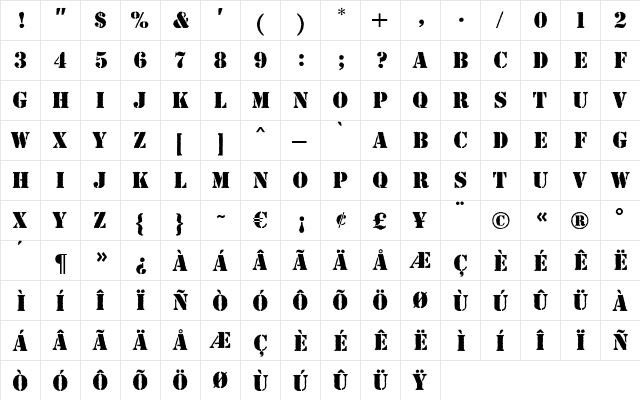
Stencil Antique MN Regular
Design Context for Stencil Antique MN Typeface
Stencil Antique MN has the warm character of retro typography — evoking diners, record sleeves, and the golden age of print advertising.
Ideal for diner signage, record shop branding, 70s/80s-themed projects, and heritage product labels.
Font Pairing: Combine Stencil Antique MN with a simple slab or neutral sans — period-accurate companions reinforce the vintage feel without competing for attention.
Pro Tip: Lean into Stencil Antique MN's period character by pairing it with aged paper textures, muted colour palettes, and vintage illustration styles.